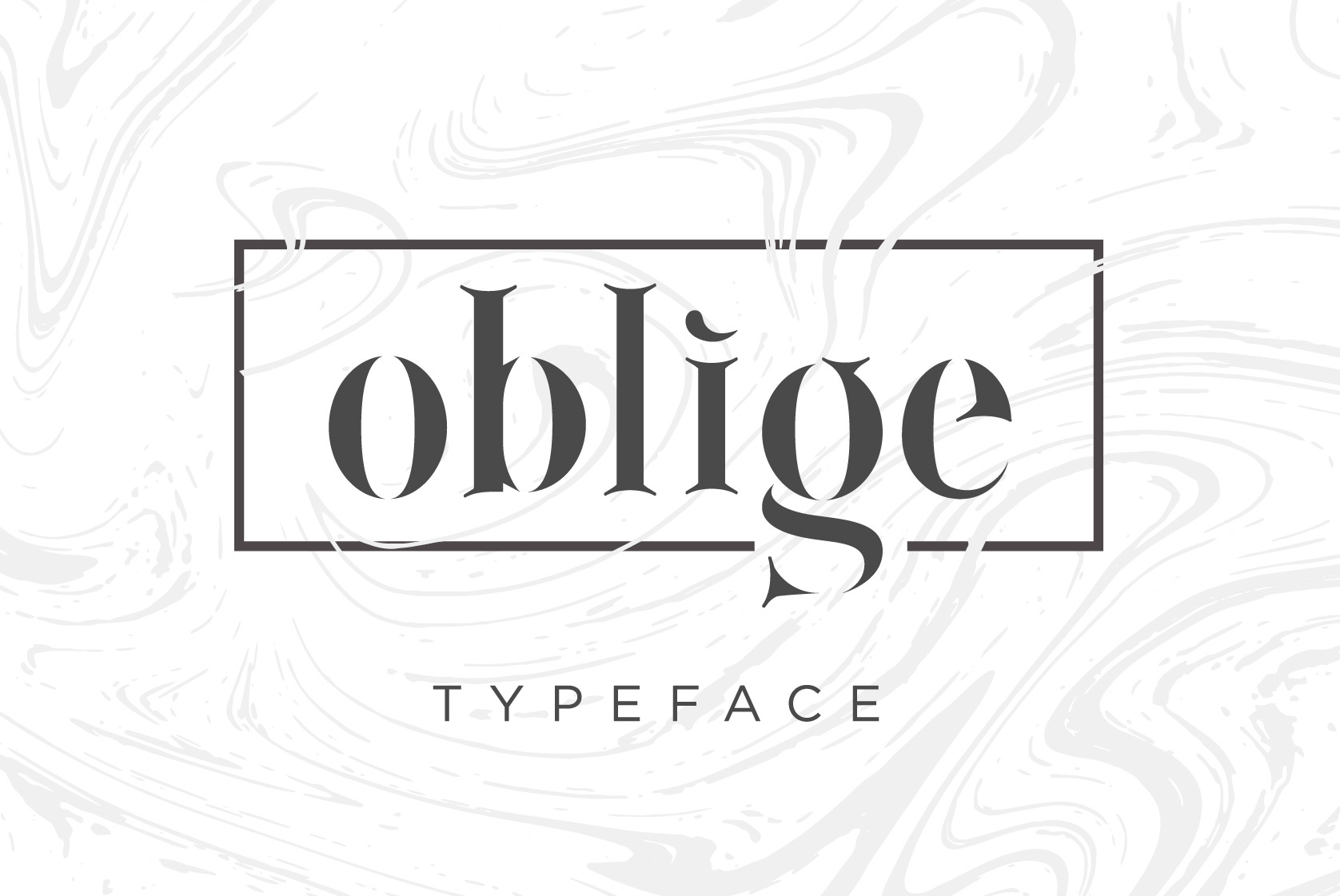
Oblige Font
I’m super excited to release my first typeface called Oblige! It is a serif/stencil font with a clean and elegant feel. It is a great font that can be used for luxury brands, fashion advertisements and/or headlines.
Oblige is a LOWER-CASE ONLY font that includes numbers and basic punctuation marks.